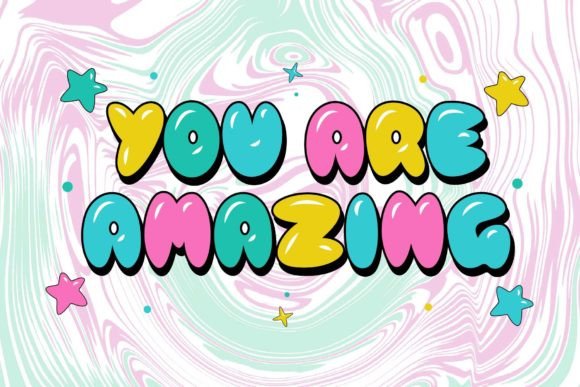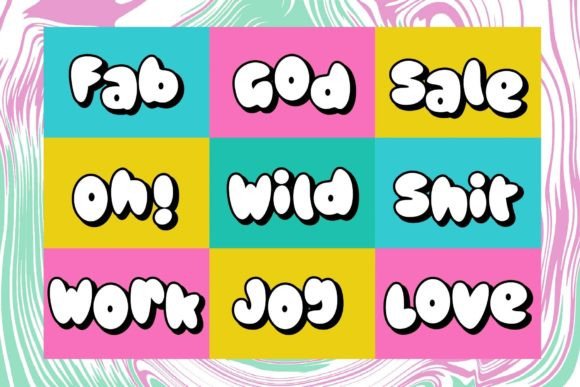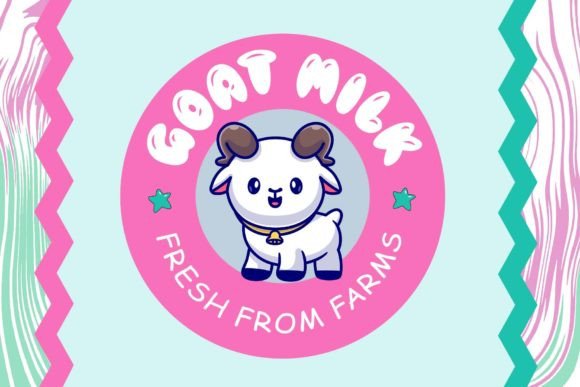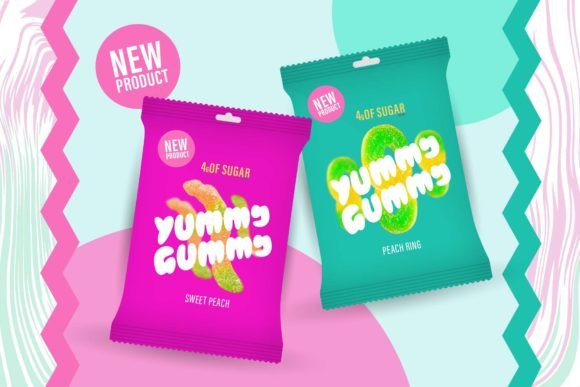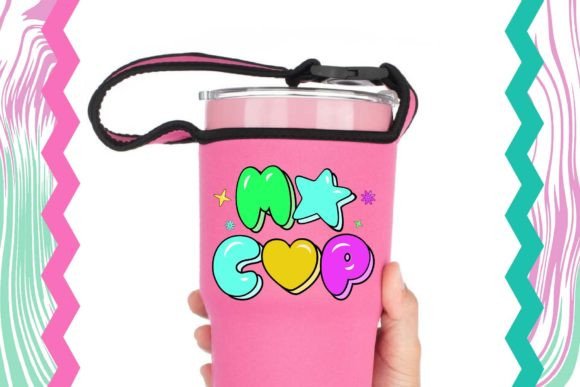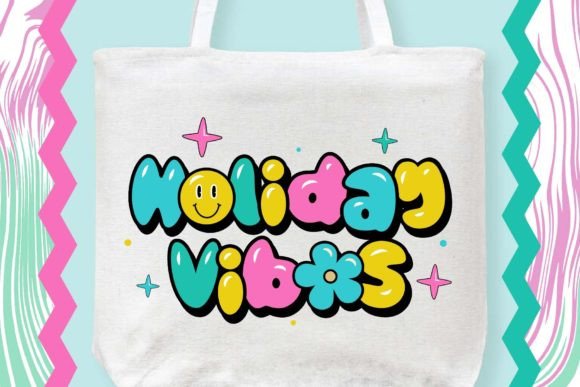
Unleashing the Joy of Childhood in Design
Have you ever stumbled upon a design that instantly transports you back to the carefree days of kindergarten? A whimsical illustration, a playful font, or a colorful pattern that sparks a sense of wonder and excitement? That’s the magic of creating with the right tools, and for designers, it all starts with the perfect typography.
Introducing Baby Kind Font, a delightful and bubbly font style that captures the essence of childhood innocence. With its chubby, rounded characters, this font is a perfect choice for adding a dash of charm and whimsy to various creative projects. Whether you’re designing t-shirts, mugs, bags, or product designs, Baby Kind Font infuses every piece with an element of fun and cuteness.
Baby Kind Font Key Features
- Unique Characteristics: Designed with a playful, handwritten style, perfect for children’s books, nursery decor, and other family-friendly applications
Designer Review: Baby Kind Font
Overall, I think Baby Kind Font has some great qualities, but also some areas where it falls short. Here are my thoughts:
- Cute and playful design: The font’s rounded edges and soft curves make it perfect for children’s content, packaging, or any project that needs a friendly vibe.
- Highly legible: The font’s design ensures that text is easy to read, even at smaller sizes, which is a must for any font.
- Supports a wide range of languages: Baby Kind Font includes support for multiple languages, making it a great choice for international projects.
- Limited font sizes: While the font is legible at smaller sizes, it starts to look a bit clumsy at larger sizes, which can be a problem for headings or titles.
- No bold or italic variations: The font only comes in regular and bold weights, which can limit its versatility.
Overall, I think Baby Kind Font is a great choice for projects that need a friendly, approachable feel. However, it may not be the best fit for projects that require a lot of font size flexibility or bold/italic text.
Tips for Getting the Most Out of Baby Kind Font
Use the Baby Kind Font for creating baby-themed designs, such as nursery art, baby shower invitations, and children’s book illustrations. Experiment with different font sizes and colors to add visual interest to your designs. You can also pair the font with other playful fonts to create a unique look.